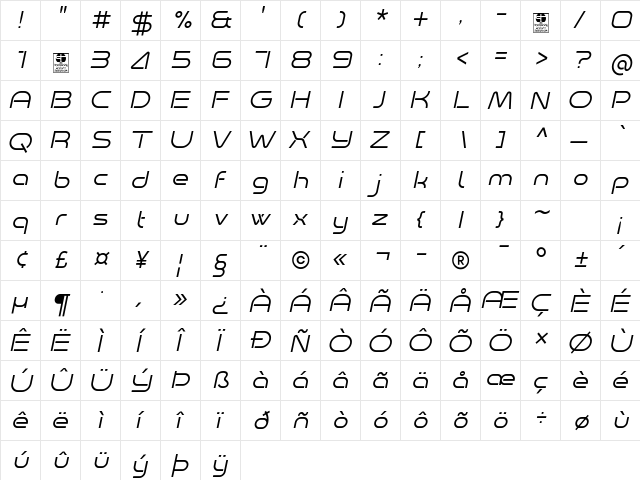
Minalis_Demo Light Italic Font Preview
Design Context for Minalis_Demo Light Typeface
Minalis_Demo Light takes a measured approach to typography — its balanced proportions and neutral character make it a reliable workhorse for both digital and print work. Its italic angle brings a sense of urgency and motion to the letterforms. Its slender proportions lend an understated elegance to any composition.
Pro Tip: Use Minalis_Demo Light for emphasis, pull quotes, and subheadings where its slanted energy can add rhythm to the layout.